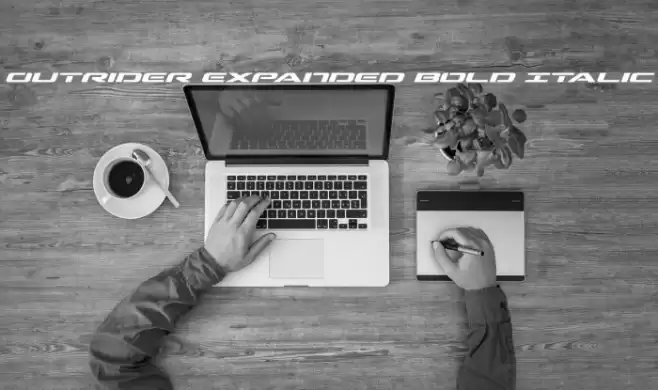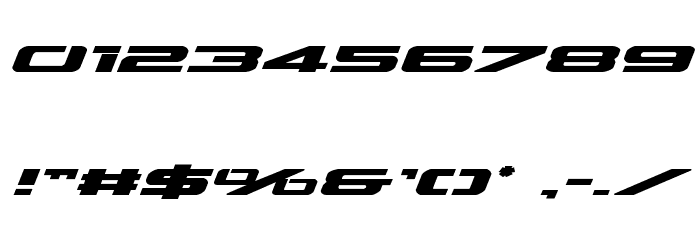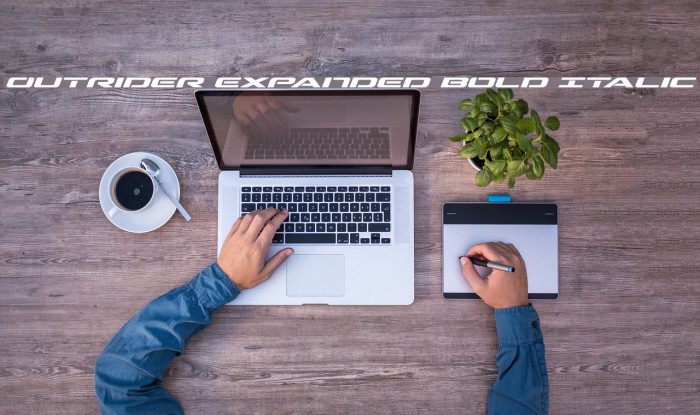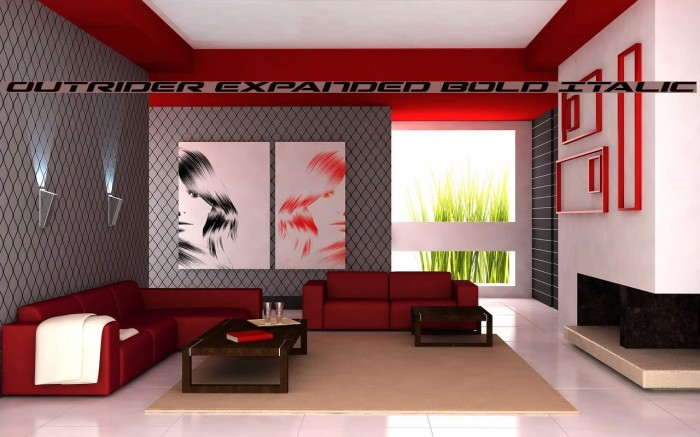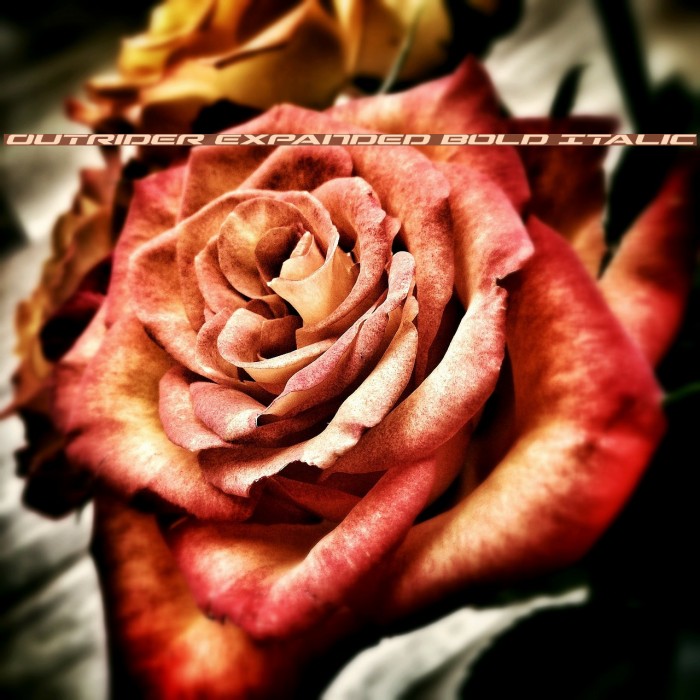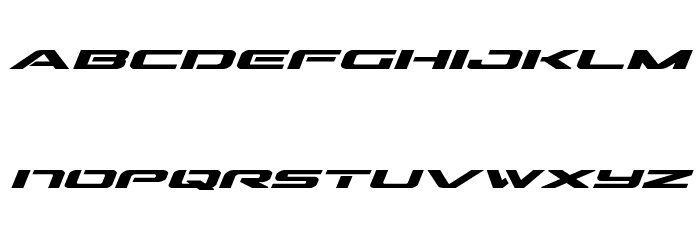
Outrider Expanded Bold Italic Font
Outrider Expanded Bold Italic Description
This font features a bold and italic style with an expanded width, giving it a dynamic and futuristic appearance. The characters are designed with sharp angles and a forward-leaning slant, which adds a sense of motion and speed. The uppercase and lowercase letters maintain a consistent style, with the lowercase letters slightly smaller but equally impactful. The numerals are bold and clear, ensuring readability. Special characters are stylized to match the overall aesthetic, making this font suitable for attention-grabbing designs.
A bold, italic, and expanded font with a futuristic and dynamic style from Uncategorized fonts.
- Proposed Projects: Ideal for projects requiring a modern and energetic look, such as sports branding, automotive advertising, video game titles, and sci-fi themed designs.